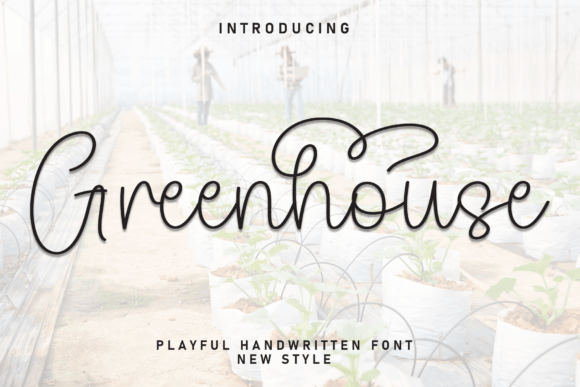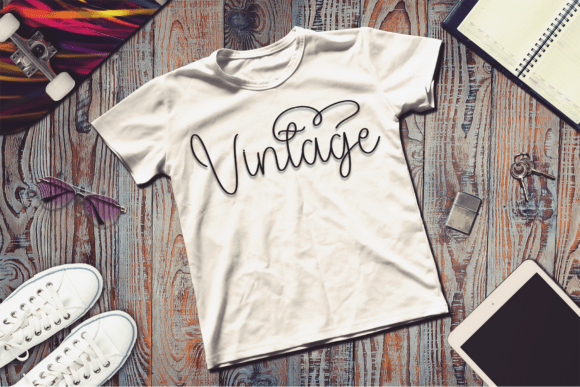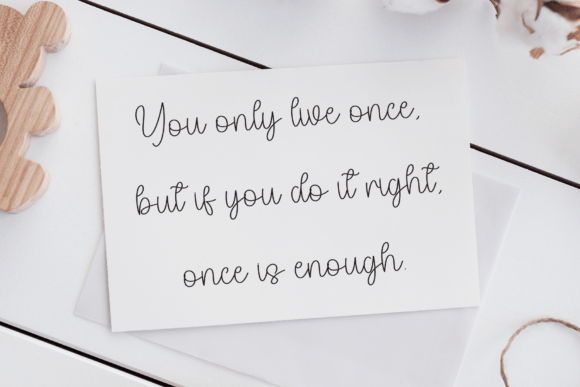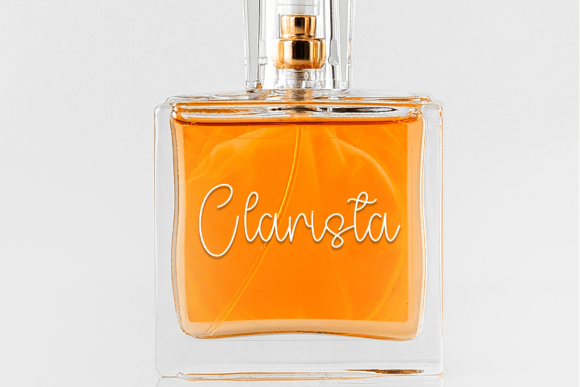
Greenhouse Font
About the Greenhouse Font
Step up your design game with Greenhouse Font, a font that exudes confidence and style. Greenhouse is a stylish handwritten script font that combines elegance with a modern flair. Its flowing strokes and organic curves bring warmth and sophistication to any project. Ideal for branding, invitations, and social media, this typeface adds a personal, refined touch with effortless charm.
Greenhouse excels in applications requiring a touch of refined elegance. It’s perfect for branding projects aimed at a sophisticated clientele, wedding invitations, short-form marketing materials, or stylish logos. Its flowing nature also makes it suitable for short quotes or headers on websites, but avoid using it for large blocks of text or body copy. Legibility suffers in smaller sizes or extended use.
This font’s personality is undeniably elegant yet approachable. To complement its inherent charm, pair Greenhouse with a clean sans-serif like Lato for body text or headings needing strong contrast. For a more traditional feel, consider pairing it with a classic serif typeface such as Garamond. Avoid pairing it with overly geometric or heavily stylized fonts which could clash with its organic forms.
Greenhouse’s modern flair and warm character makes it unsuitable for projects requiring a strong, bold, or overtly playful feel. It is best used where a sense of understated sophistication and personal touch are desired.
Greenhouse Font Example